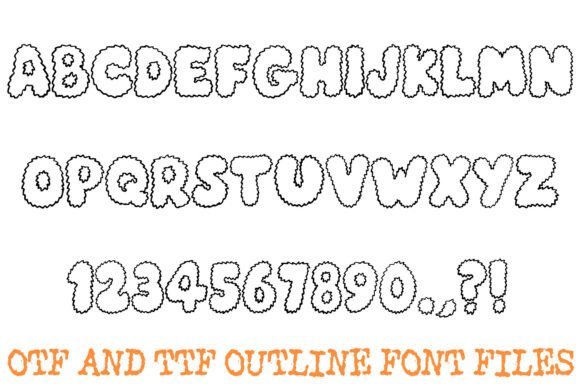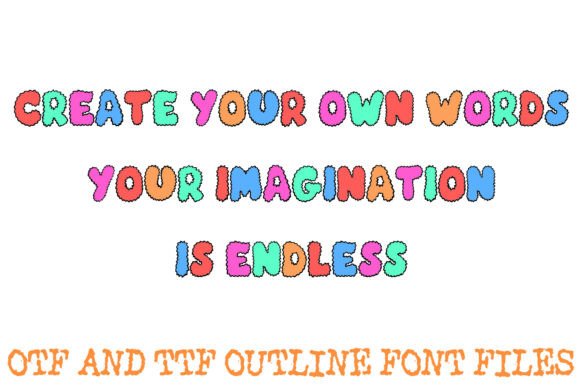
Give Your Designs a Soft, Tactile Touch with the Fluffy Letters Font
Are you looking for a unique and playful font to add a touch of whimsy to your designs? Look no further than the Fluffy Letters Font! This charming display alphabet is perfect for designers and crafters who want to create eye-catching and engaging content that stands out from the crowd. With its bold, puffy characters and soft, furry outline, the Fluffy Letters Font is sure to bring a smile to your audience’s faces.
A Whimsical Display Alphabet
The Fluffy Letters Font is a one-of-a-kind display alphabet that features bold, puffy characters defined by a playful, irregular “furry” outline. This unique design mimics the look of soft shag or cozy wool, giving your text a warm and approachable aesthetic. Each letter and number is crafted to look like a plush, handcrafted creation, making it perfect for a variety of design projects.
Ideal for a Variety of Design Projects
The Fluffy Letters Font is an ideal choice for a range of design projects, including:
- Nursery wall art: Add a touch of whimsy to nursery decor with custom wall art featuring the Fluffy Letters Font.
- Children’s birthday invitations: Create playful and eye-catching invitations that set the tone for a fun and festive celebration.
- Playful branding: Use the Fluffy Letters Font to create a unique and memorable brand identity that stands out from the crowd.
- Creative digital scrapbooking: Add a touch of texture and personality to your digital scrapbooking projects with the Fluffy Letters Font.
Why Your Designs Will Feel Extra Cozy
So, what sets the Fluffy Letters Font apart from other fonts? Here are just a few reasons why your designs will feel extra cozy with this font:
Textured Furry Outlines
Every character in the Fluffy Letters Font features a jagged, hand-drawn border that creates a soft, 3D “fluffy” appearance. This textured outline gives your text a tactile quality that invites the viewer to touch.
Playful Puffy Aesthetic
The thick, rounded shapes of the Fluffy Letters Font give each letter a friendly and cheerful personality. This playful aesthetic is perfect for designs that need to appeal to a younger audience or create a sense of fun and whimsy.
Tips for Using the Fluffy Letters Font
Here are a few tips for getting the most out of the Fluffy Letters Font:
- Use it sparingly: The Fluffy Letters Font is a bold and playful font, so use it sparingly to add emphasis and interest to your designs.
- Pair it with contrasting fonts: Pair the Fluffy Letters Font with contrasting fonts to create visual interest and hierarchy in your designs.
- Experiment with colors: The Fluffy Letters Font looks great in a range of colors, so don’t be afraid to experiment and find the perfect hue for your design.
The Fluffy Letters Font is a unique and playful font that’s perfect for designers and crafters who want to add a touch of whimsy to their designs. With its bold, puffy characters and soft, furry outline, this font is sure to bring a smile to your audience’s faces. Whether you’re creating nursery wall art, children’s birthday invitations, or playful branding, the Fluffy Letters Font is a great choice. So why not give it a try and see how it can add a soft, tactile touch to your designs?